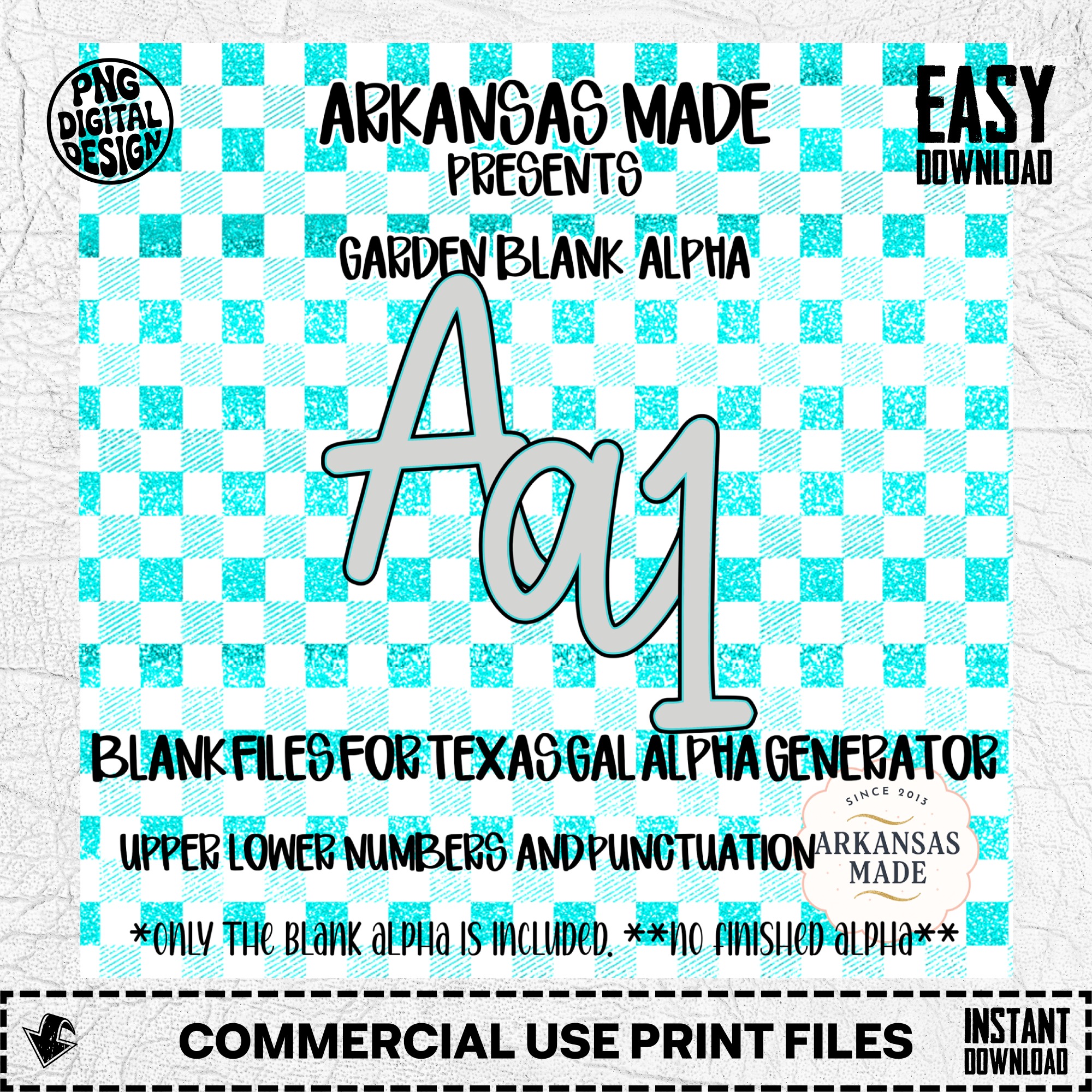
Elevate your custom creations with our Garden Blank Fillable Alpha Set, a versatile digital download for crafters and designers. Perfect for sublimation projects, this PNG/SVG font includes upper, lower, numbers, and punctuation. Unleash your creativity with this easy-to-use outline font designed for personalization. Ideal for digital crafters, small business owners, and DIY enthusiasts looking to add unique flair to tumblers, apparel, or home decor. It’s a fantastic digital asset for anyone who loves custom lettering and graphic design.